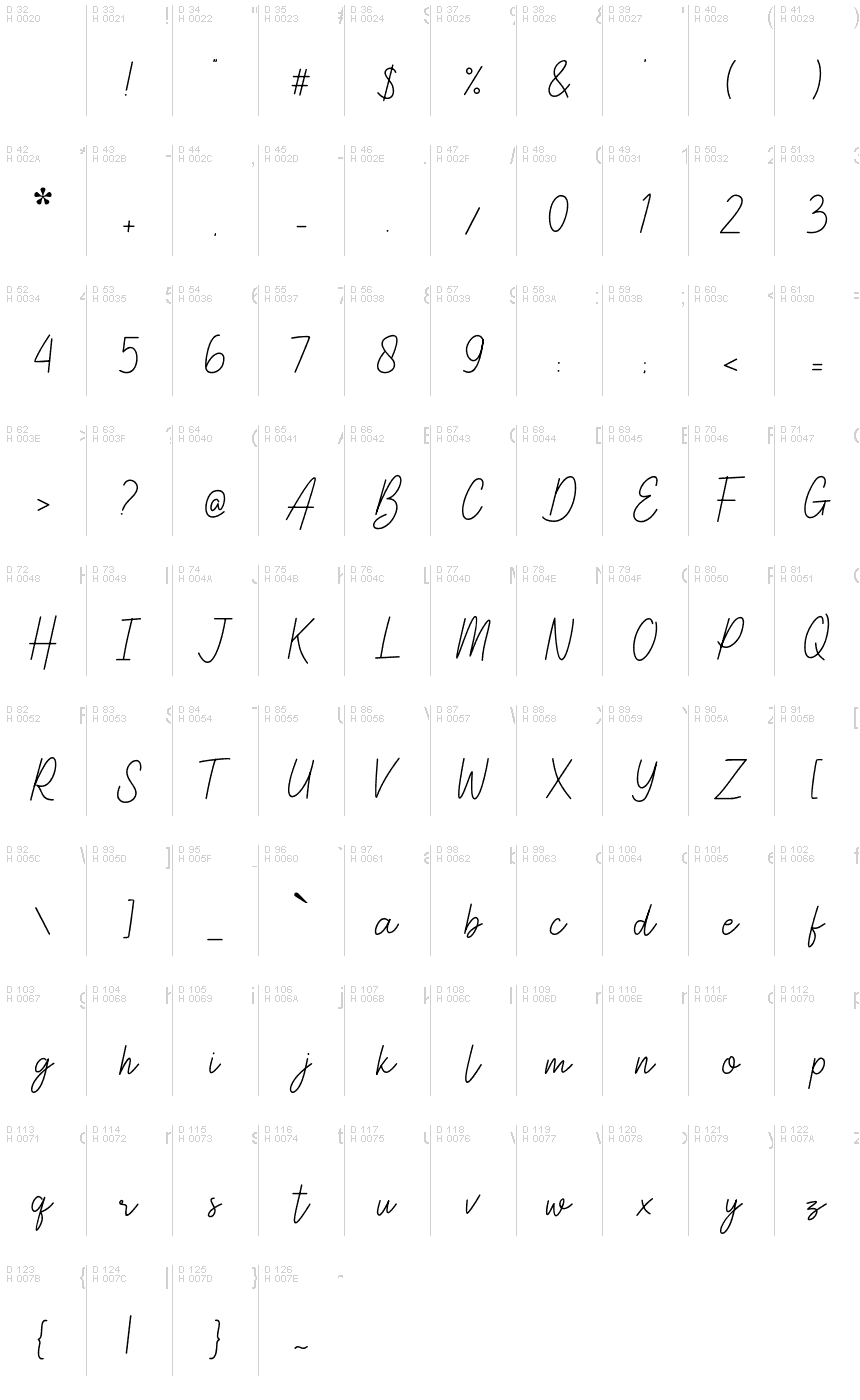
Astercla
Astercla, designed by Heinzel Std, is a charming extra-light handwritten font that is perfect for a variety of creative projects. Its delicate strokes and playful curves add personality and whimsy to any design. Use it for invitations, greeting cards, logos, and branding materials to give your project a personal touch. This font typeface also works well in digital media such as social media graphics and website designs. With Astercla's unique style, your project will stand out from the crowd and capture the attention of your audience.
Astercla by Heinzel Std